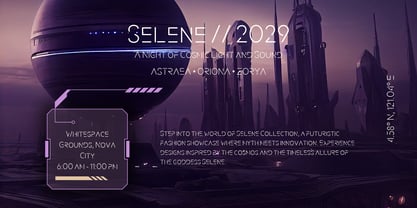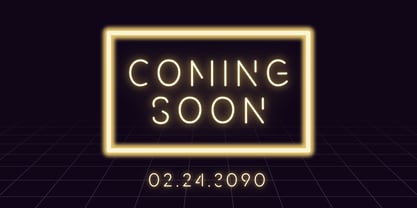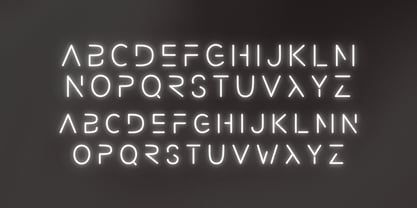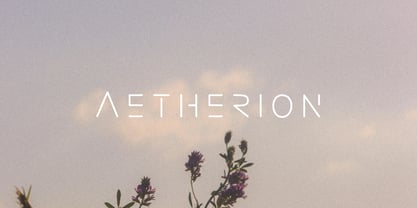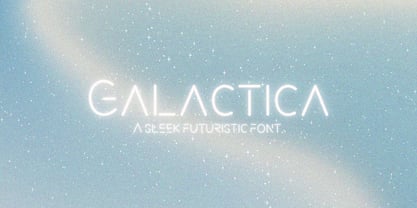
Galactica
von Sunday Type
Die Schriftfamilie Galactica wurde von Alessa Jo entworfen und von Sunday Type veröffentlicht. Galactica enthält 12 Stile und Familienpaketoptionen.
The universe always made me curious as to what could be found beyond earth. For the past few weeks, I’ve been staring outside my bedroom window looking at the same star. Every day at one in the morning, it shone beautifully in the cloudless night sky as I face West. That same star paved way for some inspiration to create a futuristic typeface. Every day, I watch it before it disappears into the oblivion.
Designer: Alessa Jo
Herausgeber: Sunday Type
Foundry: Sunday Type
Eigentümer des Designs: Sunday Type